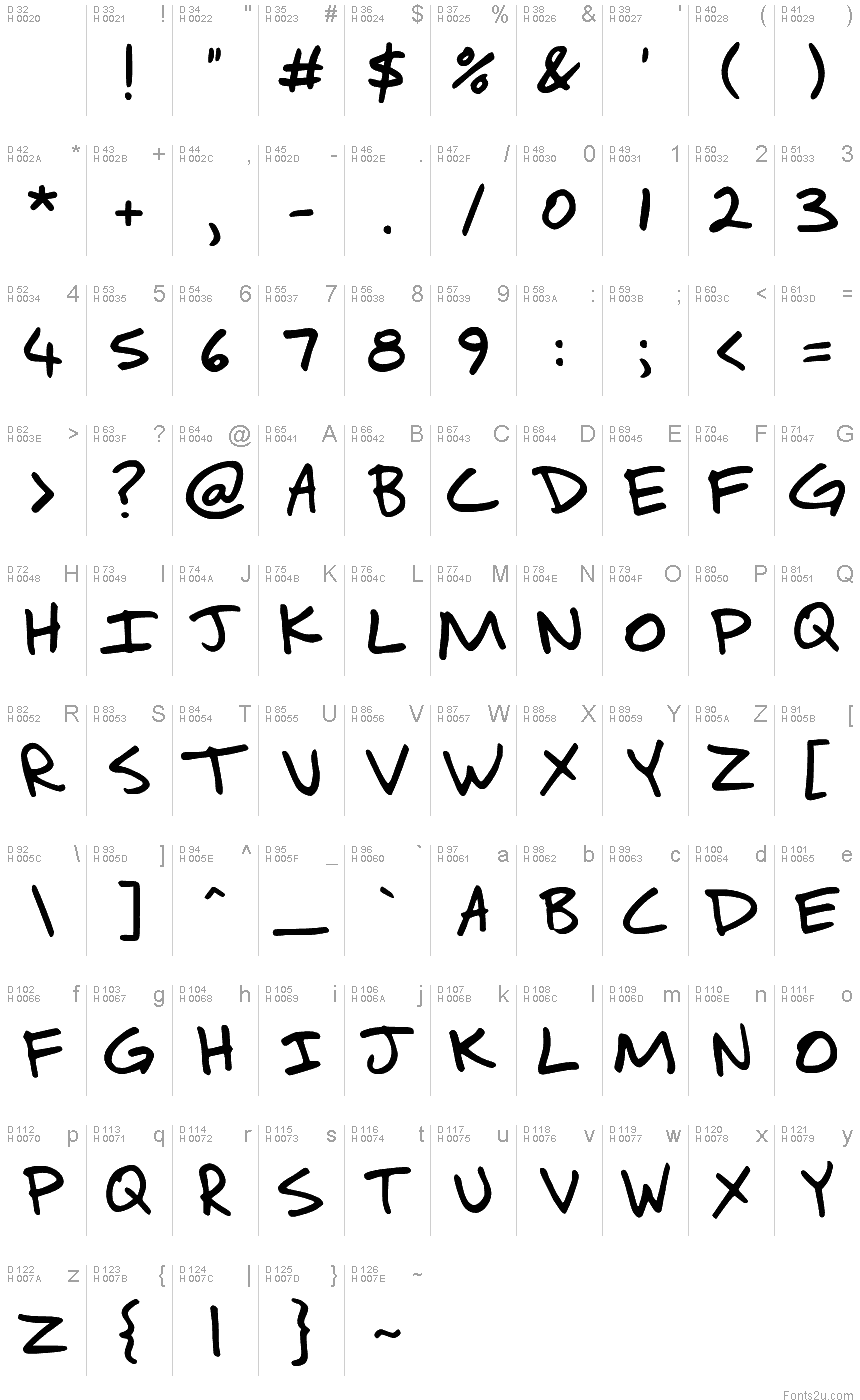
Awesome as f**k
Font created by me inspired by Awesome As F**k live album by Green Day. Also used in 21st Century Breakdown booklet lyrics.
All characters are taken from the album booklet, promo videos, DVD, posters and etc.